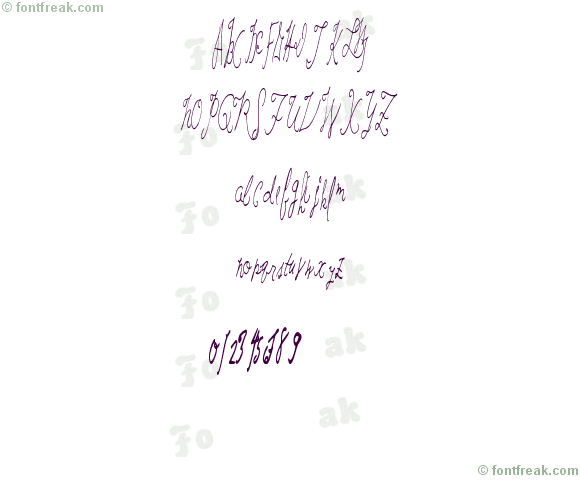
LastHand
About LastHand
LastHand by Xerographer Fonts is a captivating handwritten typeface that beautifully captures the essence of personal touch and creativity. This font, released in 2012, stands out with its fluid strokes and organic forms, giving it an inviting and friendly character. The visual characteristics include a medium stroke weight with subtle variations that enhance its handwritten appeal. The spacing is thoughtfully arranged, allowing for legibility while maintaining the charm of a casual script. LastHand features delicate loops and flourishes that add a decorative flair without overwhelming the text, making it suitable for various applications.
Ideal for wedding invitations, LastHand exudes romance and warmth, making it perfect for capturing the essence of a special day. Its unique style also lends itself well to greeting cards, where a personal touch is paramount. Graphic designers will find it useful for creating eye-catching logos and branding materials that require a human element. Additionally, restaurant menus can benefit from this font, as it can evoke a cozy atmosphere that entices diners. Content creators looking to add a personal touch to their projects will also appreciate the versatility of LastHand.
In a world where digital fonts often lack personality, LastHand stands out as a refreshing option that brings warmth and individuality to any design. Its unique characteristics and versatility make it a valuable addition to any designer's toolkit, inviting creativity and expression in every use.